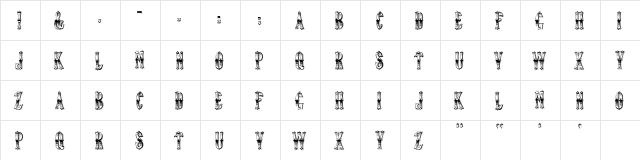
Lavinia Regular Font Preview
Lavinia Regular
Lavinia Regular Font Details
Design Context for Lavinia Typeface
Lavinia is a composed and adaptable typeface that performs quietly and consistently across a wide range of design contexts.